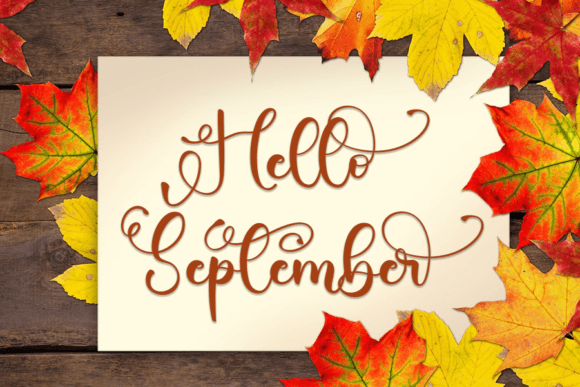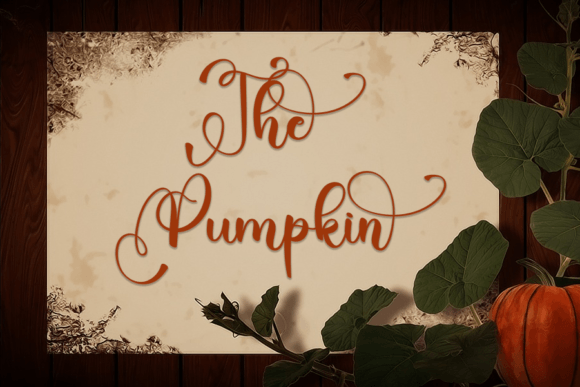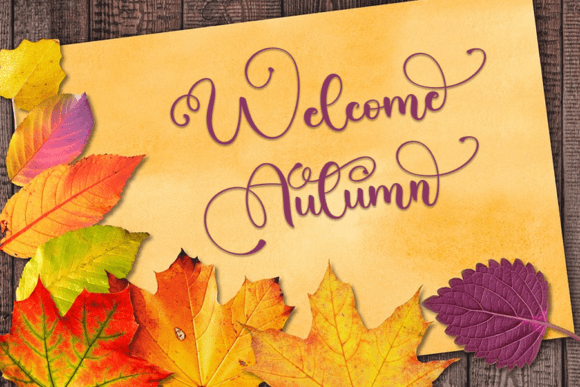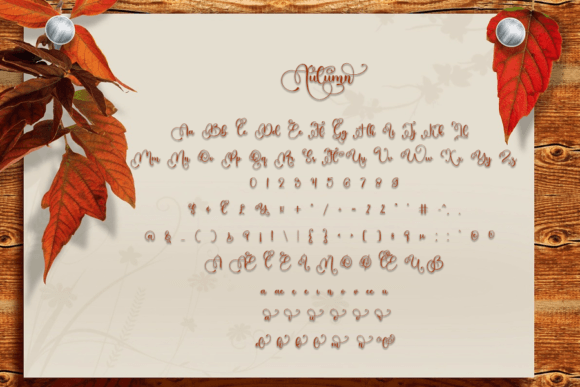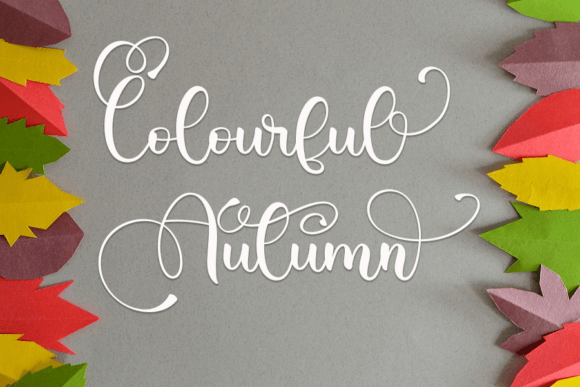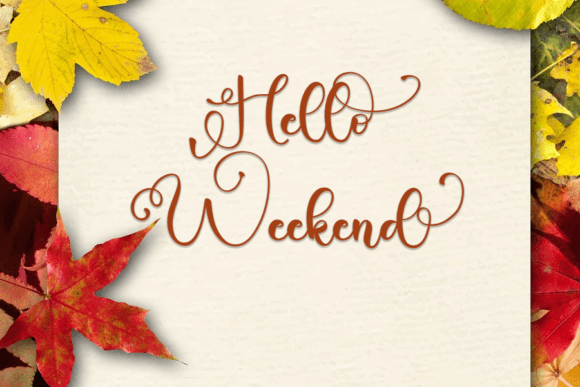
Discover the Timeless Charm of Autumn Font
As a designer, you’ve probably experienced that moment when inspiration strikes – you’re working on a project, and suddenly, the perfect font pops into your mind. It’s like a breath of fresh air, elevating your entire design and giving it that extra oomph. For me, it was the moment I stumbled upon Autumn Font.
Autumn Font is a beautifully crafted, cool handwritten script font that exudes modern charm and sophistication. With its spotless form and balanced, varied strokes, it’s designed to take your projects to the next level. Whether you’re working on a branding project, a social media campaign, or a website, Autumn Font is the perfect companion to bring your creative vision to life.
What sets Autumn Font apart is its versatility and timeless appeal. It’s not too thin, not too thick – just perfectly balanced. This makes it an invaluable asset for designers who want to add a touch of elegance and sophistication to their work without compromising on style or legibility.
Autumn Font Key Features
- Font Style: Autumn Font is a handwritten font with a warm, autumnal feel, perfect for creating cozy and inviting designs.
- Unique Characteristics: Autumn Font features unique, hand-painted textures and subtle imperfections, giving it a natural and organic feel.
Designer Review: Autumn Font
Autumn Font is a beautiful script font designed to evoke the cozy feelings of fall. ✨ It’s perfect for projects that require a warm, inviting atmosphere, like holiday greeting cards, autumn-themed websites, or even book covers. The font’s unique blend of cursive and handwritten elements makes it both elegant and approachable.
One of the standout features of Autumn Font is its high legibility, even at smaller font sizes. ✨ This makes it an excellent choice for body text or headlines that need to be easily readable. Additionally, the font’s subtle texture and imperfections add a touch of humanity, giving it a personal feel that’s hard to find in other fonts.
- ⚠️ Limited font weights: Autumn Font only comes in a single weight, which may not be ideal for projects that require bold or italic versions.
- ⚠️ Limited language support: As a script font, Autumn Font may not be optimized for languages that require complex typography, like Chinese or Japanese.
Overall, Autumn Font is a charming and versatile font that’s perfect for projects that need a warm, autumnal feel. While it has some limitations, its unique design and high legibility make it a great addition to any designer’s toolkit.
Getting the Most Out of Autumn Font
To get the most out of Autumn Font, use it in combination with earthy colors and natural textures to create a cozy and inviting atmosphere.
Use it in titles, headings, and body text to add a touch of warmth and personality to your design.
Autumn Font is perfect for:
Seasonal marketing campaigns, especially for Halloween, Thanksgiving, and Christmas.
Outdoor and nature-themed designs, such as park brochures, hiking trails, and environmental organizations.
Cozy and intimate events, such as weddings, baby showers, and birthday parties.